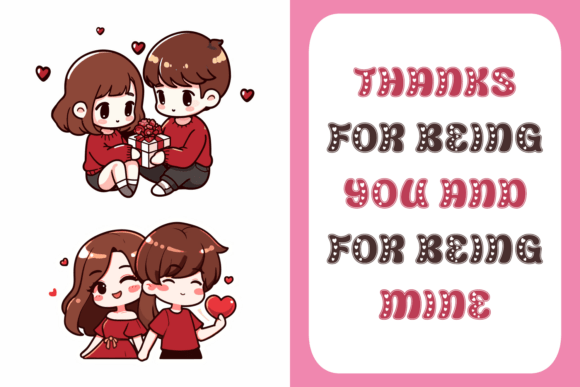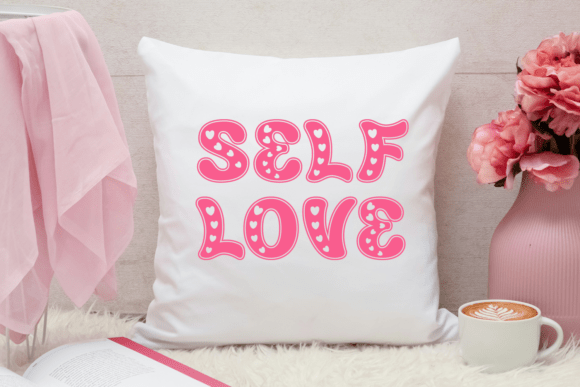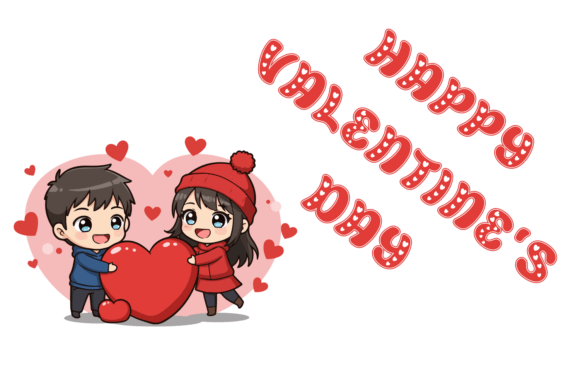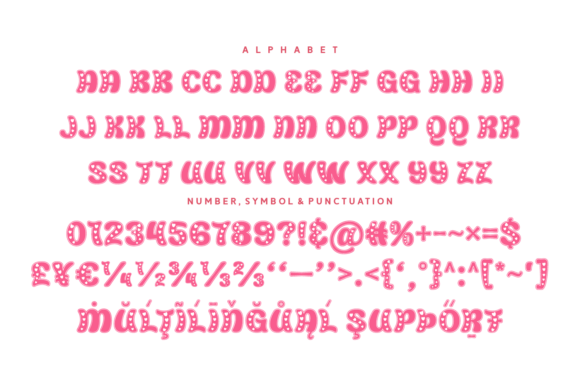
Introducing Heart Touch Font: The Perfect Choice for Your Passionate Design Endeavors
Are you looking for a font that can add a touch of warmth and personality to your designs? Look no further than Heart Touch, a distinctive and charming font that’s perfect for a wide range of creative projects. Whether you’re crafting heartfelt wedding invitations, writing poetic quotes, or designing eye-catching merchandise for Valentine’s Day, Heart Touch brings an authentic and fresh feel to your creations.
A Versatile Font for Various Design Applications
One of the standout features of Heart Touch is its versatility. This unique font can be used for a variety of design applications, including greeting cards, book covers, apparel, and even product packaging. Its smooth and flowing lines give it an unrivaled smoothness that truly touches the heart of your audience. Whether you’re a designer, crafty DIY enthusiast, or a business owner looking to create engaging branding materials, Heart Touch is an excellent choice.
Multilingual Support for Global Brands
In today’s global market, it’s essential to have a font that can cater to diverse audiences. Heart Touch boasts multilingual support, including accented and Eastern European characters, making it perfect for global brands that wish to imbue their design with a personal touch. This feature allows you to create designs that resonate with your international audience, setting your brand apart from the competition.
Clean Aesthetics for Various Design Projects
Heart Touch’s clean aesthetics make it an excellent fit for various design projects, including magazine layouts, brand designs, and posters. Its elegant lines and curves also make it perfect for creating striking logotypes and labels. Whether you’re going for a professional or playful look, Heart Touch envelops your messaging with a distinct and engaging appeal that captures the attention of your audience.
As a designer or crafter, you’re always on the lookout for fonts that can help you create unique and captivating designs. Heart Touch is an excellent addition to your font library, offering a fresh and authentic feel that’s sure to impress your clients or audience. Its charm and character make it perfect for designs that require a personal touch, such as wedding invitations, greeting cards, and other heartfelt projects.
Key Features of Heart Touch Font
- Distinctive and charming font with a unique feel
- Versatile and suitable for various design applications
- Multilingual support, including accented and Eastern European characters
- Clean aesthetics perfect for magazine layouts, brand designs, and posters
- Ideal for creating striking logotypes and labels
- Perfect for designers, crafters, and business owners looking to add a personal touch to their designs
Get Creative with Heart Touch Font
With Heart Touch font, the creative possibilities are endless. Here are some ideas to get you started:
- Create stunning wedding invitations and save-the-date cards
- Design eye-catching merchandise for Valentine’s Day or other special occasions
- Develop a unique brand identity with a custom logotype or label
- Write poetic quotes and share them on social media or your blog
- Design beautiful greeting cards for birthdays, anniversaries, or holidays
In conclusion, Heart Touch font is an excellent choice for designers, crafters, and business owners looking to add a personal touch to their designs. Its unique feel, versatility, and multilingual support make it perfect for a wide range of creative projects. With Heart Touch, you can create designs that truly touch the heart of your audience, setting your brand apart from the competition. So why wait? Get creative with Heart Touch font today and bring a fresh and authentic feel to your designs!